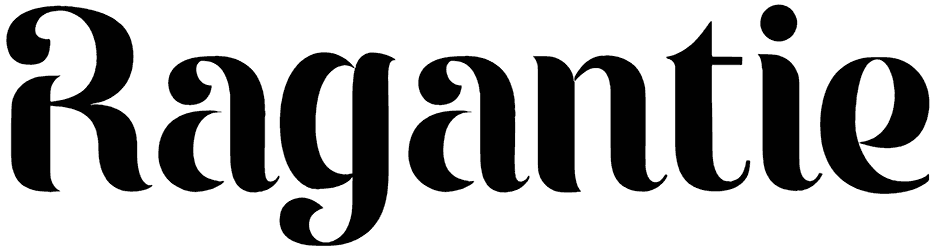
Ragantie Font
Designed byAsrul Asyary
Bring a beautiful and vintage vibe to your novel design with this retro font and grab a lot of attention. The soft and noble style of the characters will give an interesting visual to the words and make them more impressive. Ragantie font can be matched with different formal or informal projects, like a manager’s business card or a chic restaurant menu.
this font is handmde, making the characters one by one so that its originality is guaranteed, this font is suitable for use for formal and non-formal purposes, banners, logos, posters and others